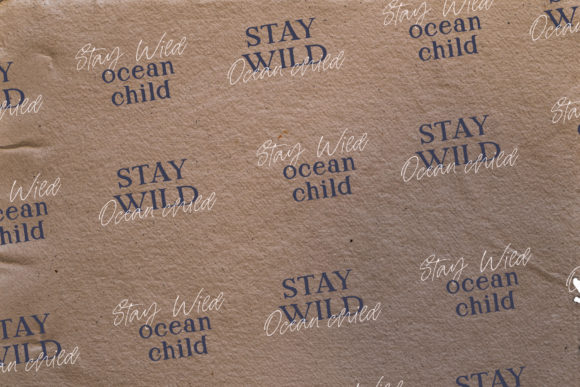
Open Roads Duo Font
db-ku.com - Script & Handwritten -- Open Roads Duo is a vintage styled duo font (script and serif). Together or apart, these fonts are ideal for adding a chic and cheery touch to your crafts. This font is PUA encoded which means you can access all glyphs and swashes with ease!